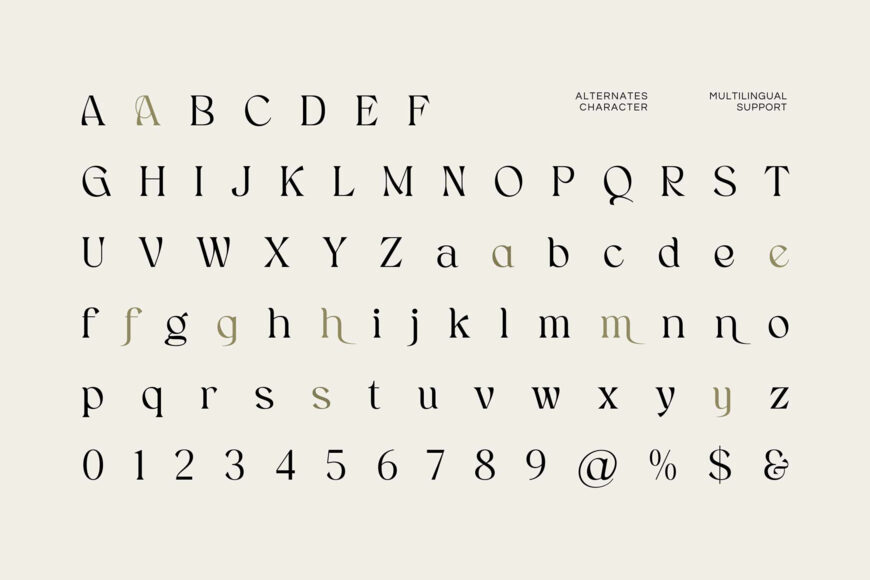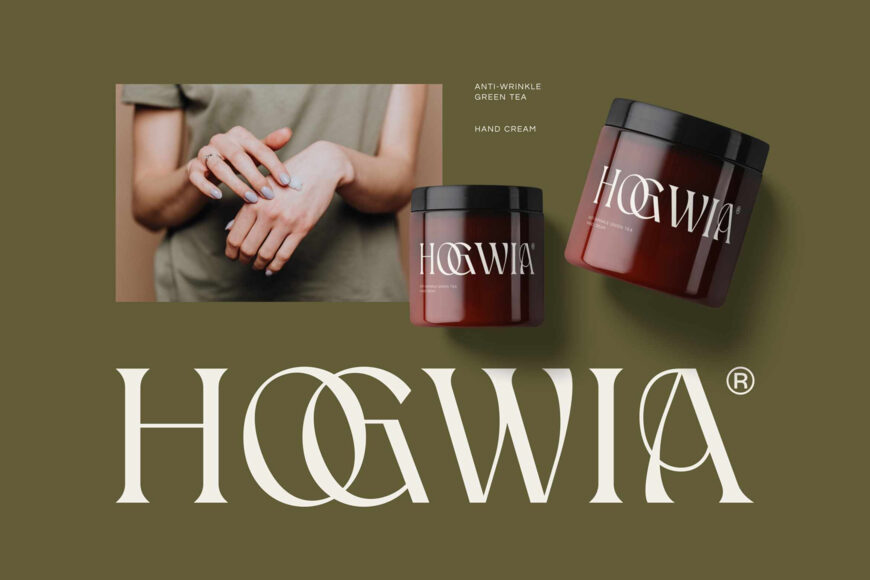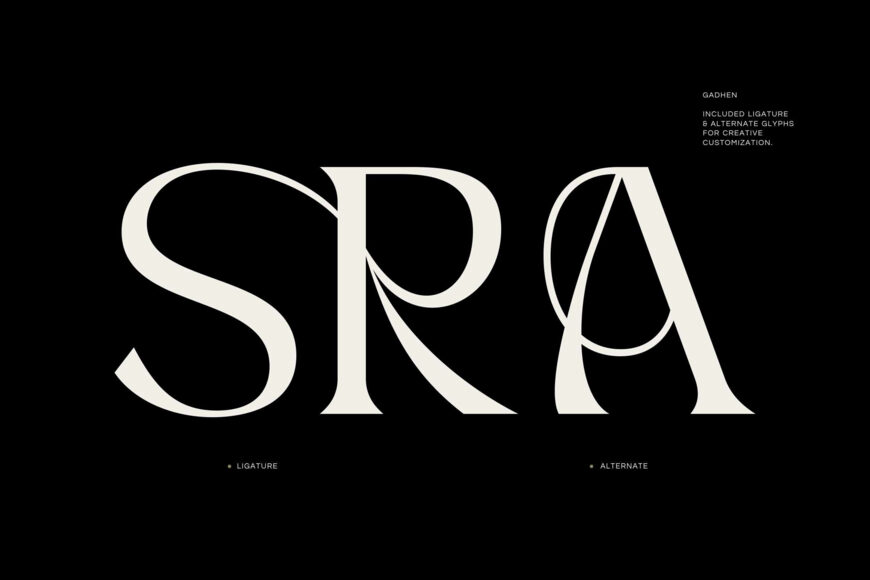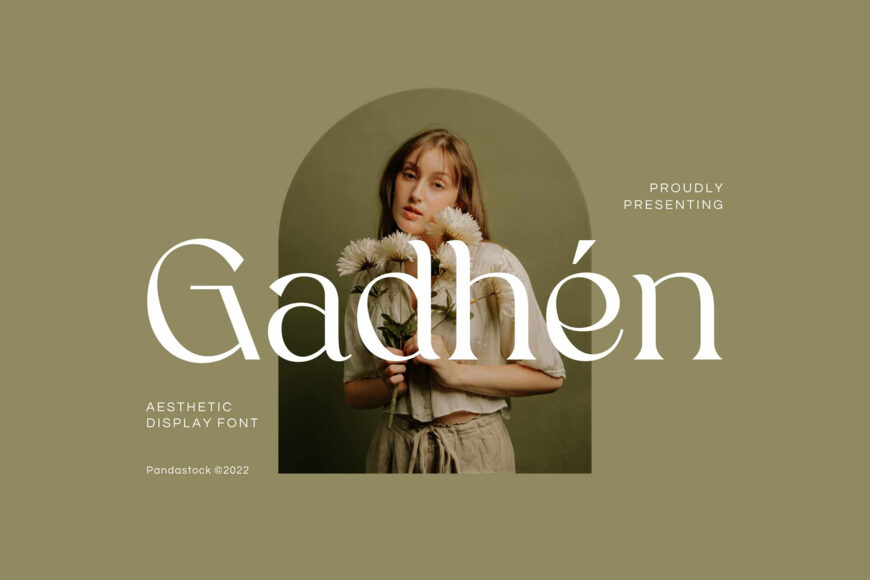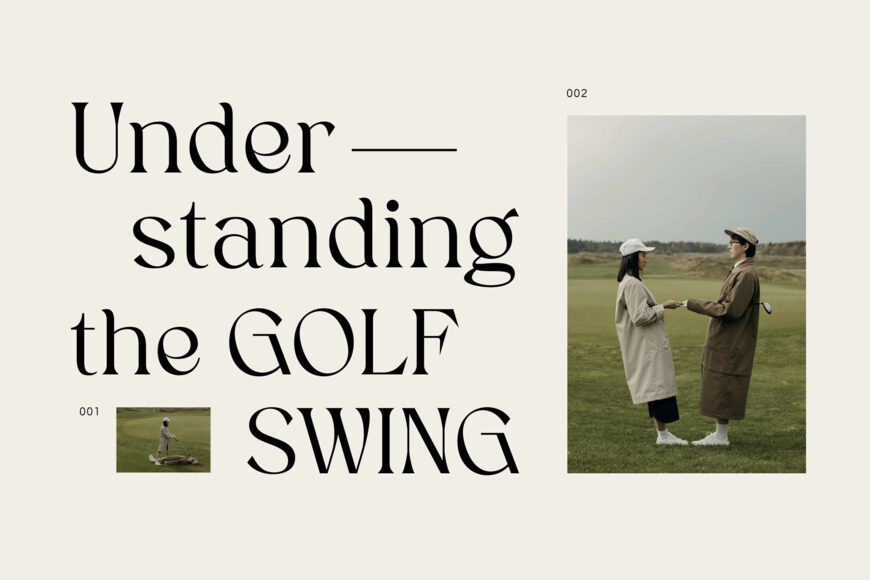
Gadhen Font
Introducing Gadhen, a modern aesthetic display font that perfectly marries classic elegance with modern flair. Each letter is meticulously crafted sharp serifs, and graceful curves that deliver a harmonious balance between sophistication and contemporary design.
Perfect for editorial layouts, packaging, social media graphics, magazine covers, fashion branding, logo design, wedding invitations, and luxury product design, Gadhén elevates your project with a sense of artistry, confidence, and refined modernity.